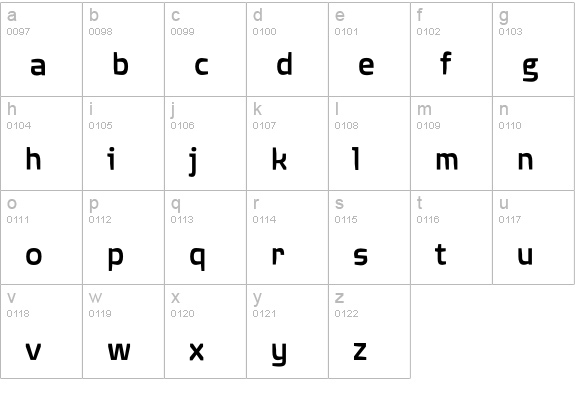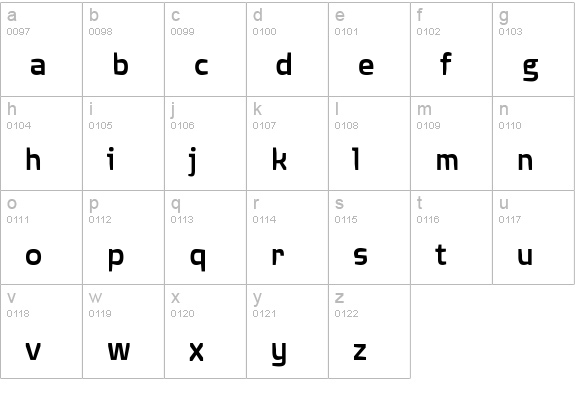
Quagmire-Medium Font Details
Quagmire-Medium is a balanced, medium-weight variant in the Quagmire typeface family \xE2\x80\x94 well suited to sub-headlines, navigation, and balanced editorial work.
Quagmire-Medium font is a perfect blend of elegance and modernity, making it the ideal choice for a wide range of design projects. This versatile typeface exudes a sense of sophistication and professionalism, while also maintaining a touch of playfulness. With its balanced and harmonious letterforms, Quagmire-Medium font is sure to captivate and engage readers, no matter the medium. Whether it's used in print materials, websites, or branding, this font effortlessly conveys a sense of reliability and creativity. One of the most appealing aspects of Quagmire-Medium font is that it is freely available to download at FontsMarket.com. This means that designers, artists, and creative individuals can access this extraordinary font without any cost, allowing them to enhance their projects without breaking the bank. The Quagmire-Medium font boasts a wide range of characters, including uppercase and lowercase letters, numbers, symbols, and punctuation. Its clean and legible design ensures readability in both large and small sizes, making it suitable for headlines, body text, and everything in between. Whether you're working on a branding project, editorial design, or even a personal project, Quagmire-Medium font will elevate your work to new heights. Its timeless appeal and versatility make it a must-have in any designer's toolkit. With its free availability at FontsMarket.com, Quagmire-Medium font offers an incredible opportunity for designers to access a high-quality typeface without any financial constraints. Embrace the elegance and uniqueness of Quagmire-Medium font and watch your designs flourish with sophistication and style.